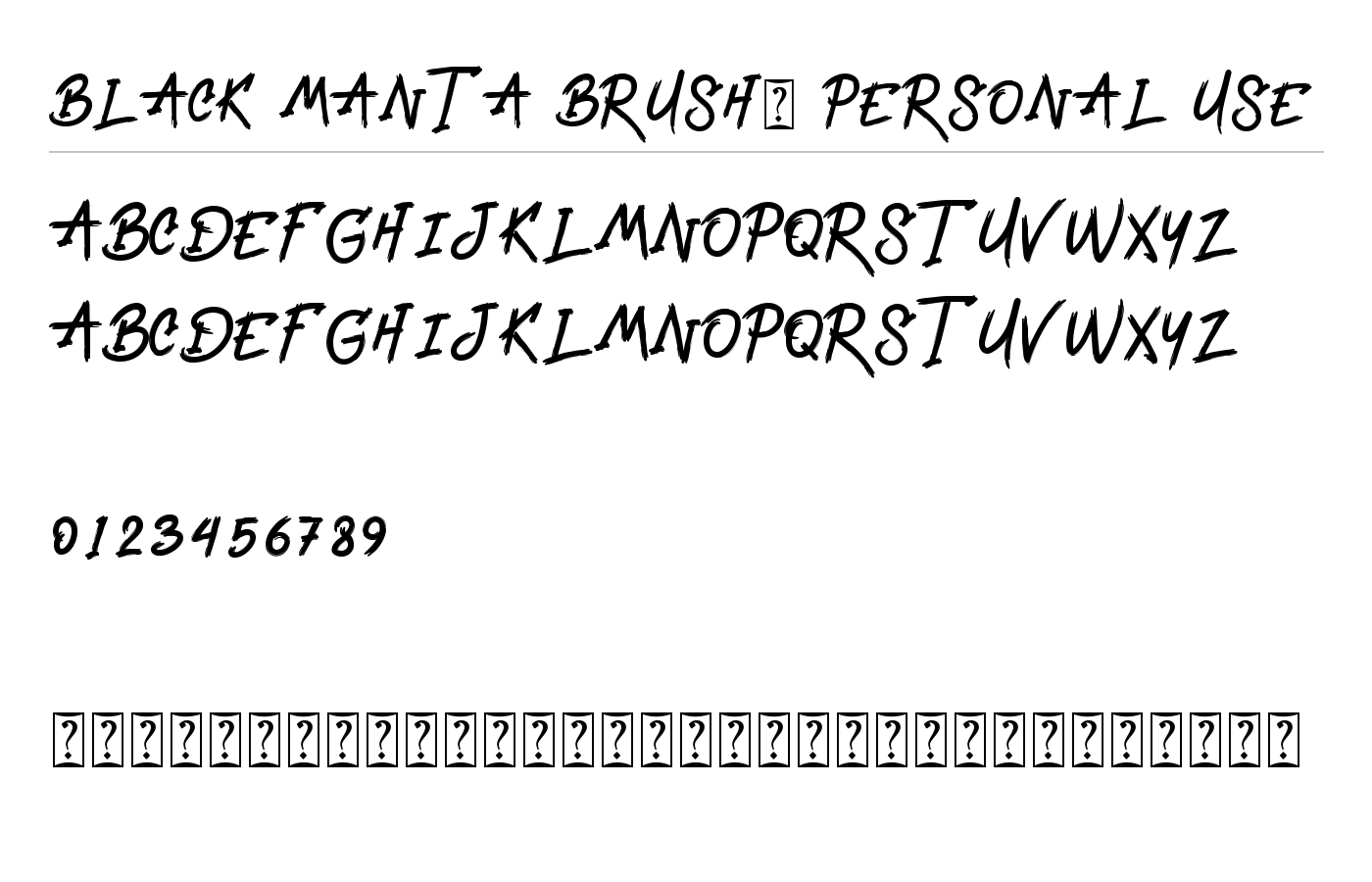
Black Manta Brush is a lively and textured brush script font that brings a hand-painted feel to any design. Its bold, slightly irregular strokes combined with an energetic flow make it perfect for creative projects that want to convey a casual, artistic, and personal touch. This font works wonderfully for logos, posters, and branding that seeks a fun yet impactful handwritten look.
Black Manta Brush- Personal Use Font
About Black Manta Brush- Personal Use Font